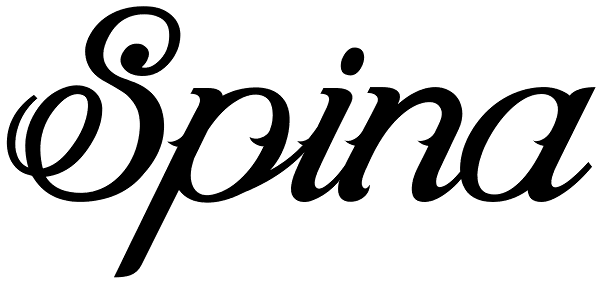
Spina
The 225 glyphs that make "Spina Typeface" are the result of experience with hundreds of drawings, sketches and digital test in seeking to achieve a typeface that represented the fluides of the script's and elegance of the modern Roman. Thereby...